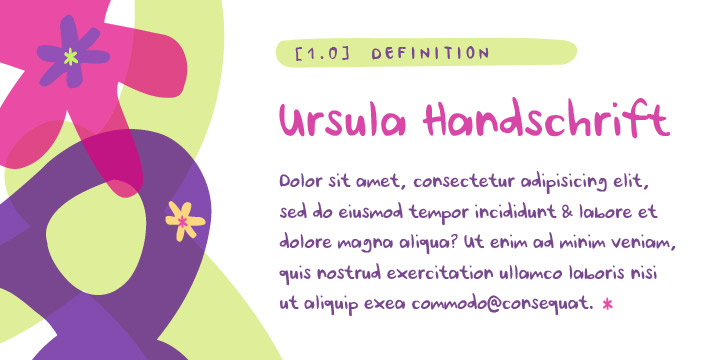
Ursula Handschrift is a hand drawn and kids font published by Letters & Numbers.
Ursula Handschrift is based on the designer’s handwriting. Individual characters are simple, soft and expressive; making it a friendly, organic script. It will work well in scrap-book style designs, comic books, for informal headings and image captions.
Ursula Handschrift is extended, containing West European diacritics making it suitable for multilingual environments and publications.